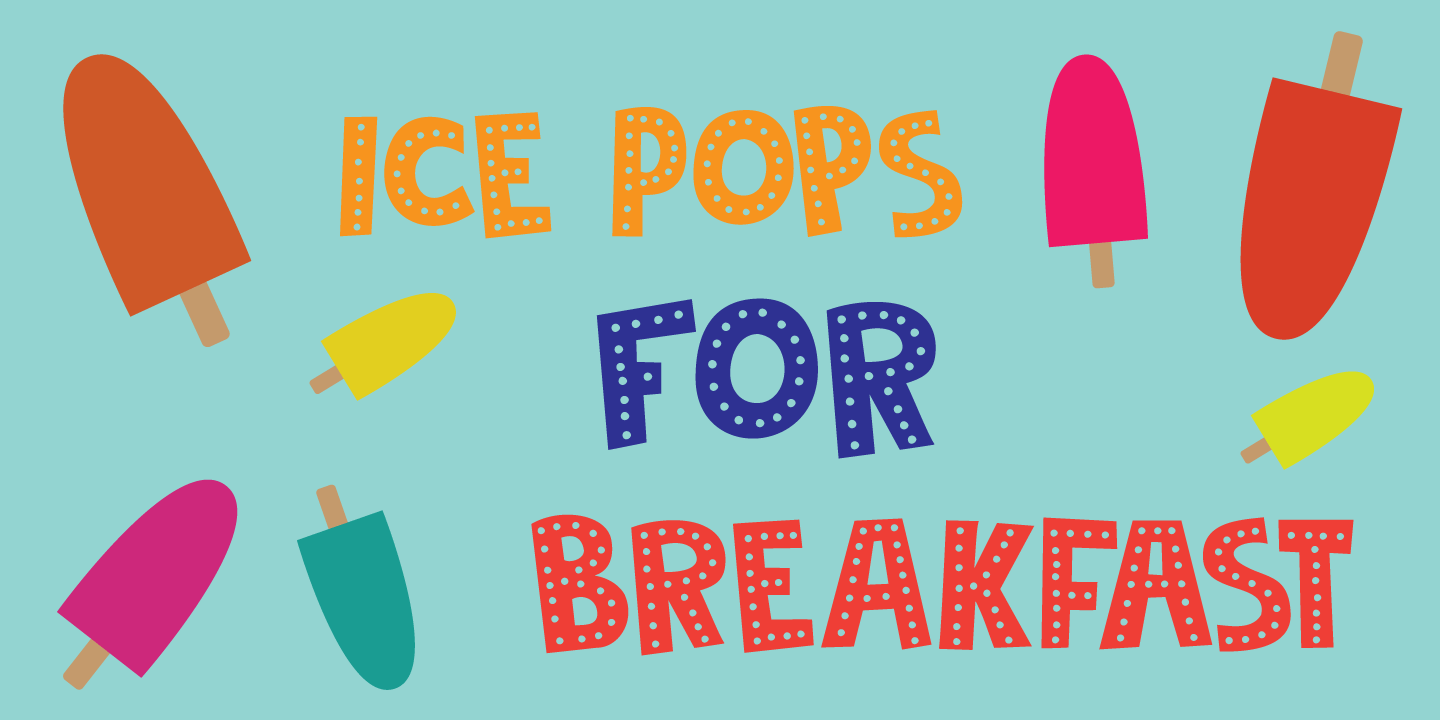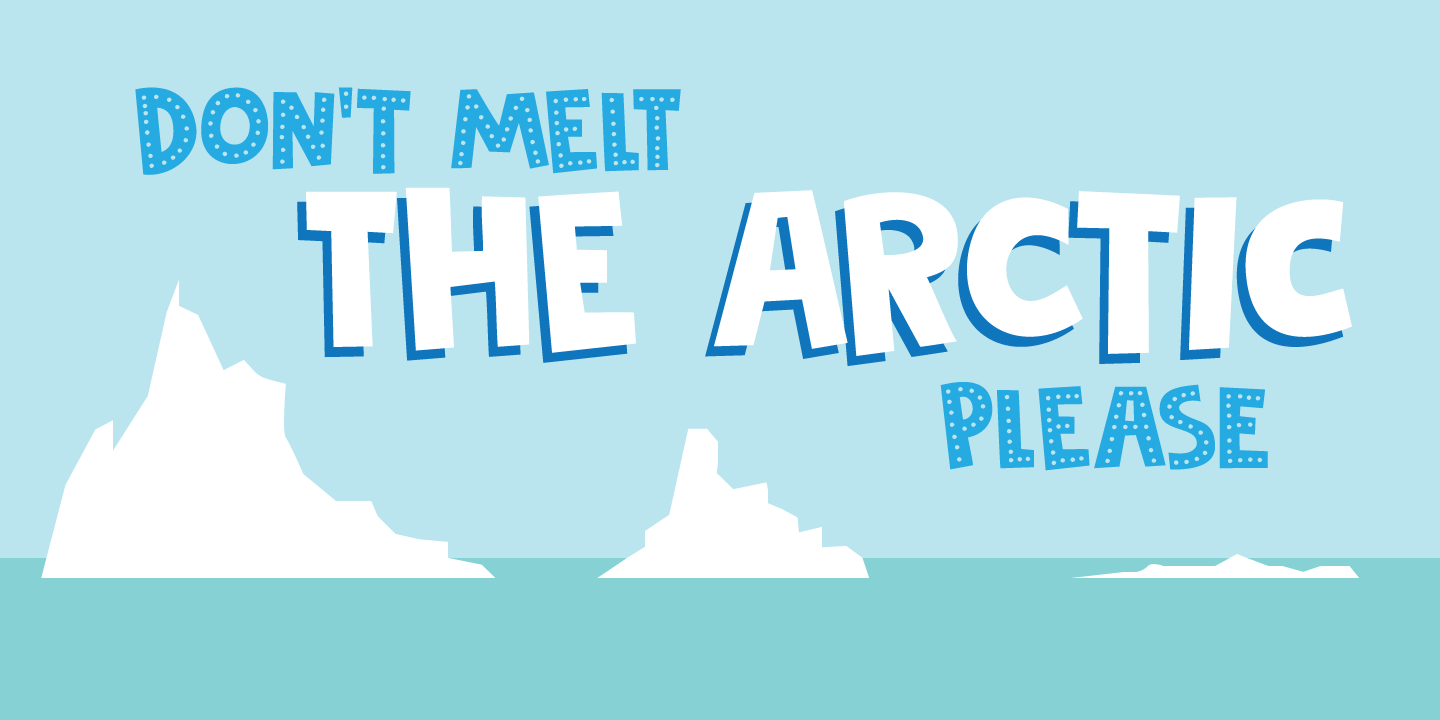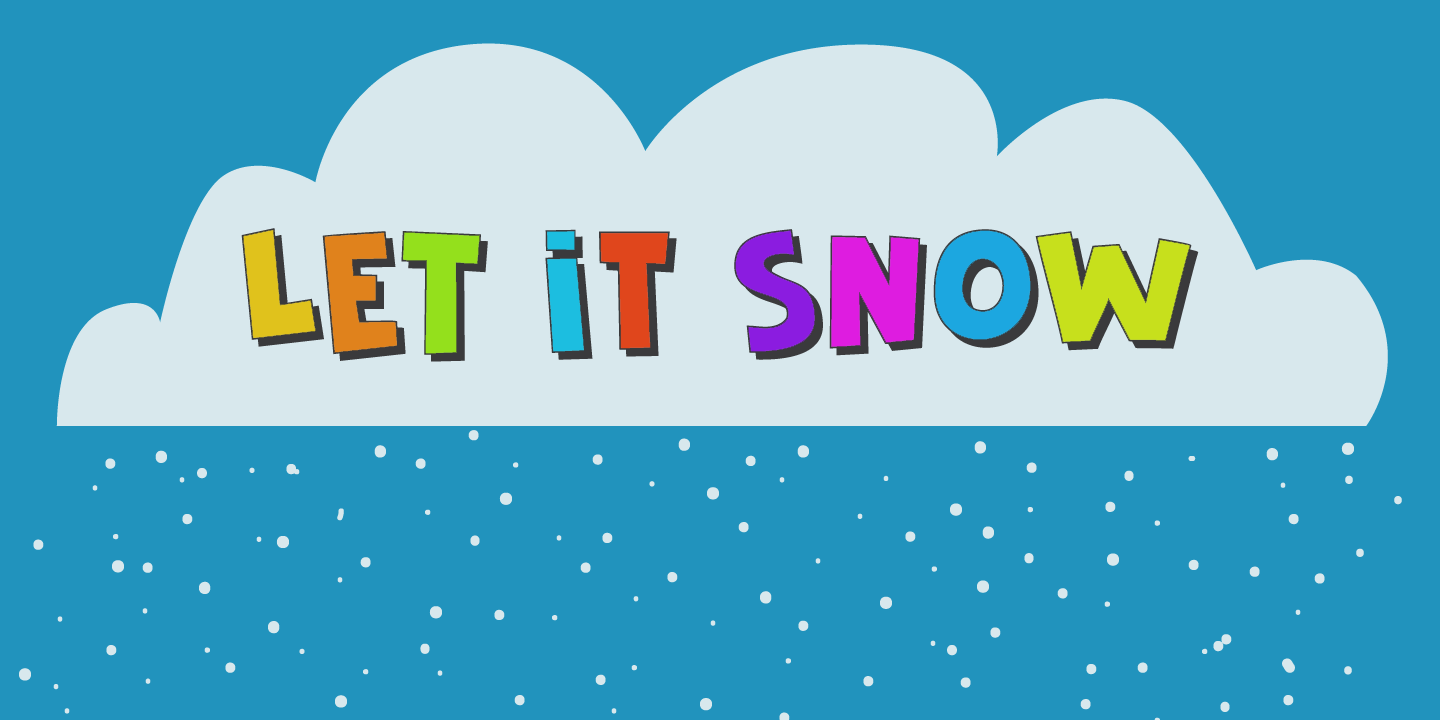
About Frozen Memory
Frozen Memory is a heavy-boned cartoon display font. Even though it was completely made by hand (using a roller ball pen and some quality paper), it has a clean look, crisp lines and generous curves. Frozen Memory comes in three distinct styles, helping…